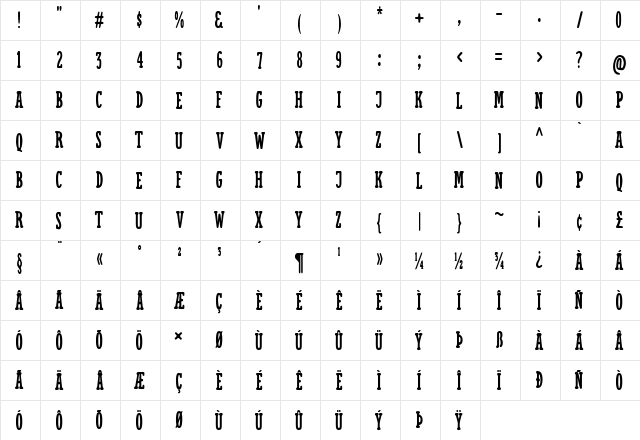
Cronies Bold
| Designer | HENRIavecunK |
Design Context for Cronies Typeface
Cronies offers clean, dependable letterforms without strong stylistic allegiance, making it a practical choice for designers who need flexibility. The heavy weight commands attention and anchors typographic hierarchies.